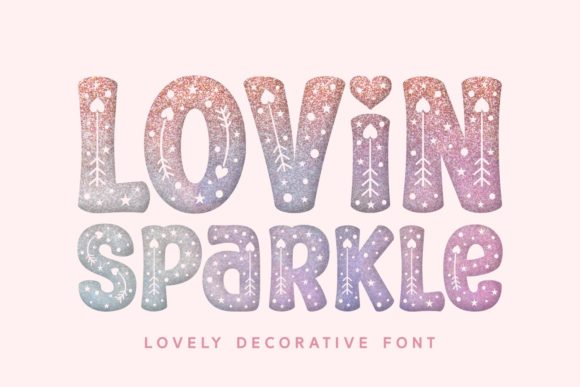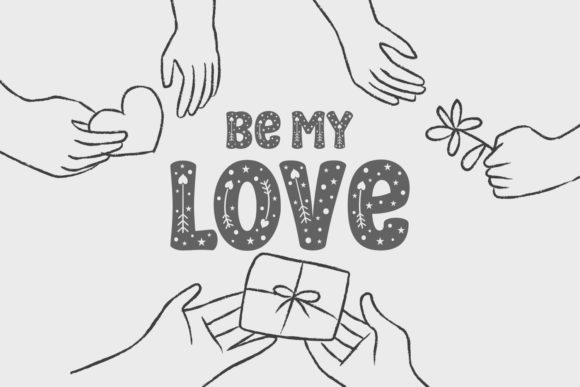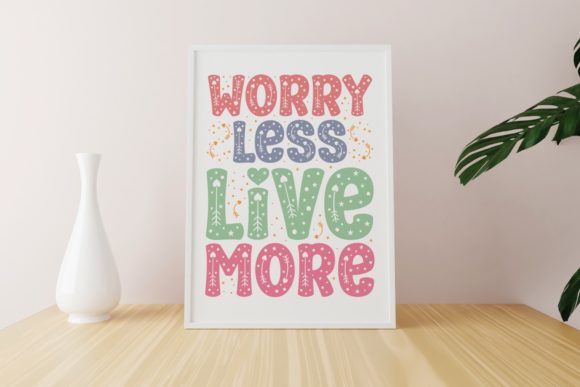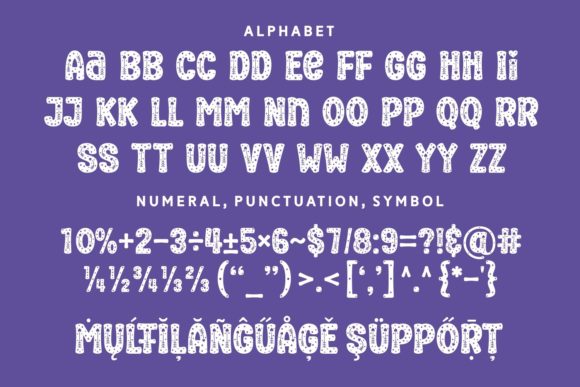
The Lovin Sparkle font will be sure to enhance your next craft or design project from Valentine’s Day and beyond! This font features unique design elements in each glyph simulating a sparkle effect.
Lovin Sparkle Font